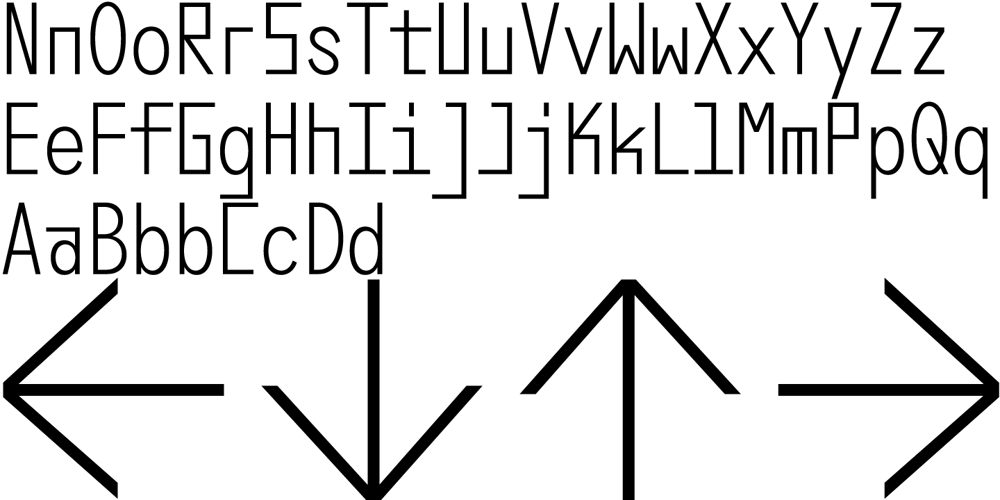
Grotesk Remix Monospace Font Family was designed by Benoît Bodhuin and published by bb-bureau. Grotesk Remix Monospace contains 3 styles and family package options. GroteskRemix monospace is the monospaced version of the GroteskRemix – Grotesk revisited, notably used for the (Latin) communication of Typojanchi 2019. It availabe in 3 different weights: light, regular and medium. Language: latin glyphs